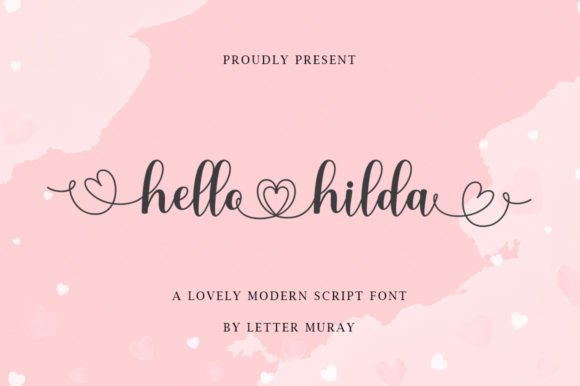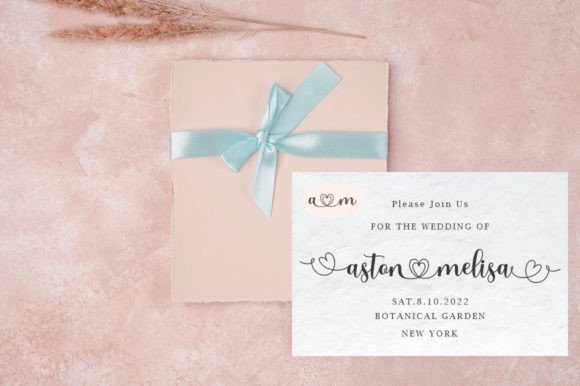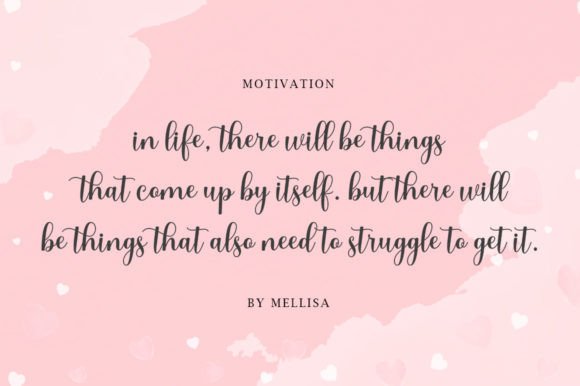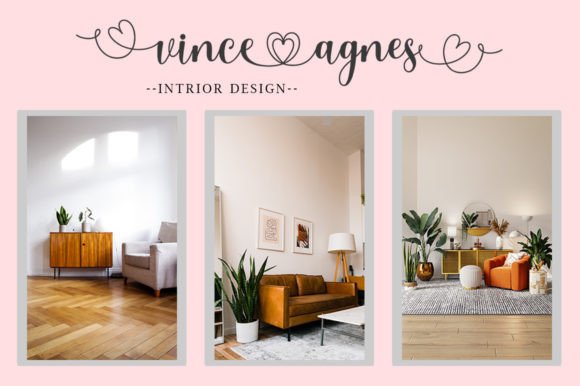
Hello Hilda Font: A Romantic Script for Wedding & Logo Design
About the Hello Hilda Font
We are excited to introduce Hello Hilda Font, a must-have typeface for any serious designer. Hello Hilda is an exquisite script font with beautiful heart swashes, masterfully designed to become a true favorite. It maintains its classy calligraphic influences while feeling contemporary and fresh. Fall in love with it and bring your projects to the highest levels! This font is PUA encoded which means you can access the available glyphs and swashes with ease!
Hello Hilda’s elegant, yet contemporary feel makes it ideal for projects requiring a touch of sophistication. It shines in headlines, logos, and short text elements on invitations, wedding stationery, or branding materials for luxury goods. Avoid using it for large blocks of body text; its delicate strokes can strain readability in extended passages.
Its inherent charm pairs well with clean sans-serif fonts like Montserrat or Open Sans for a balanced contrast, or a geometric sans-serif like Futura for a more modern feel. For a touch of vintage appeal, consider pairing it with a serif like Garamond or Playfair Display.
Hello Hilda exudes a refined, yet friendly personality. It’s versatile enough for both playful and sophisticated applications, but its script nature means it works best when used sparingly and purposefully as a design accent.
Hello Hilda Font Usage Examples
Hello Hilda Font Example